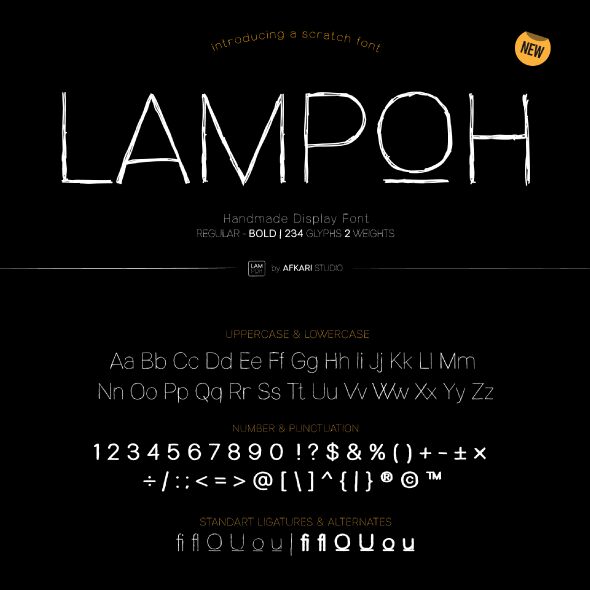
LAMPOH Bold
Lampoh Bold, part of the Lampoh font family created by Afkari Studio, is a captivating and artistic display font perfect for a variety of creative projects. Each character in Lampoh has been meticulously hand-drawn with love and passion, giving it a distinct and organic feel. The scratch-inspired design adds a raw and artisanal charm to the font, making it ideal for artistic endeavors.
Lampoh comes in both regular and bold styles, offering flexibility in choosing the perfect weight for your design needs. The regular style exudes elegance and subtlety, while the bold style makes a powerful statement that is ideal for headlines and emphasis.
With its versatility, Lampoh is suitable for a wide range of projects. It can enhance eye-catching headlines, attention-grabbing posters, logo designs, merchandise branding, or anything that requires a touch of artistic flair. Let Lampoh effortlessly elevate the visual appeal of your work with its unique and authentic character.
Lampoh comes in both regular and bold styles, offering flexibility in choosing the perfect weight for your design needs. The regular style exudes elegance and subtlety, while the bold style makes a powerful statement that is ideal for headlines and emphasis.
With its versatility, Lampoh is suitable for a wide range of projects. It can enhance eye-catching headlines, attention-grabbing posters, logo designs, merchandise branding, or anything that requires a touch of artistic flair. Let Lampoh effortlessly elevate the visual appeal of your work with its unique and authentic character.